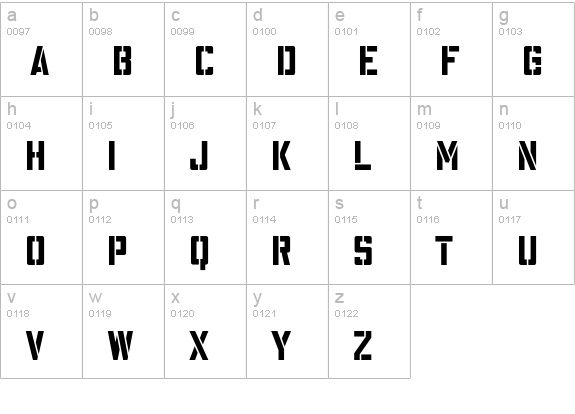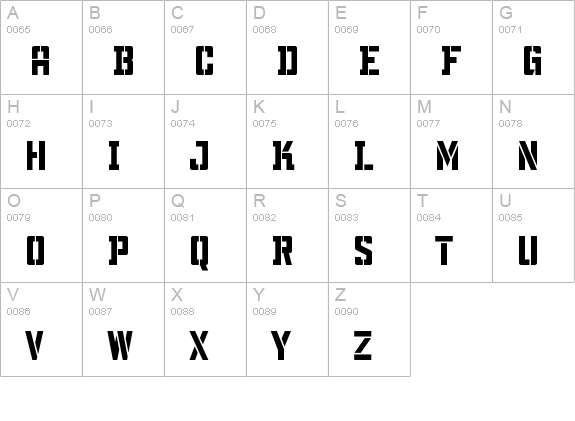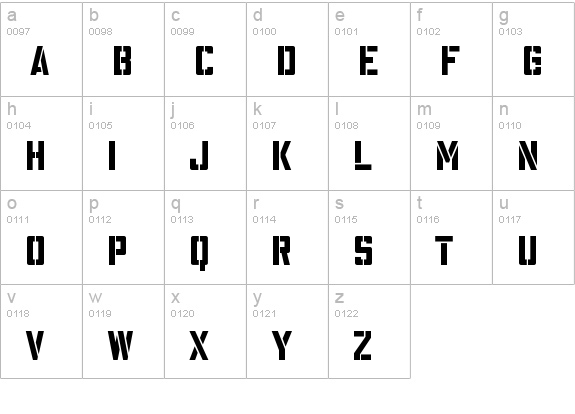
WaterTower-Capitals Font Details
WaterTower-Capitals is a stunning and versatile font that exudes elegance and sophistication. With its clean lines and bold strokes, this font is perfect for adding a touch of refinement to any design project. Whether you're creating a logo, a headline, or even a wedding invitation, WaterTower-Capitals will elevate your typography to new heights. This font is not only visually appealing but also incredibly easy to read. Its well-defined characters ensure that your message is conveyed with clarity and style. The attention to detail in each letterform is evident, making WaterTower-Capitals a true work of art. What sets WaterTower-Capitals apart is that it is free! Yes, you read that right. This incredible font is freely available to download at FontsMarket.com. Now, you don't have to sacrifice quality for affordability. With WaterTower-Capitals, you can create stunning designs without breaking the bank. Whether you're a professional designer or a hobbyist, WaterTower-Capitals is a must-have addition to your font collection. Its versatility allows it to seamlessly integrate into various design styles, from modern to vintage, ensuring that your creations stand out from the crowd. So why wait? Unlock your creativity and download WaterTower-Capitals today from FontsMarket.com. With its timeless elegance and cost-free accessibility, this font is the perfect choice for all your design needs.